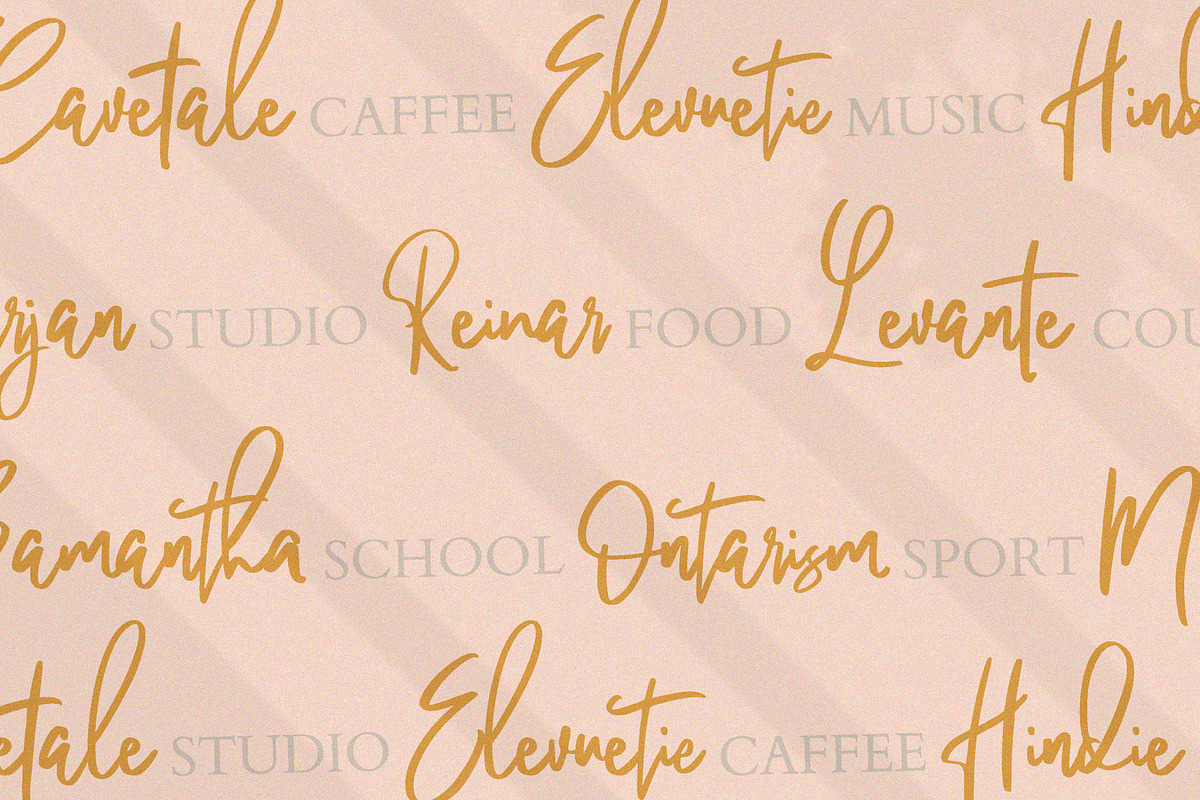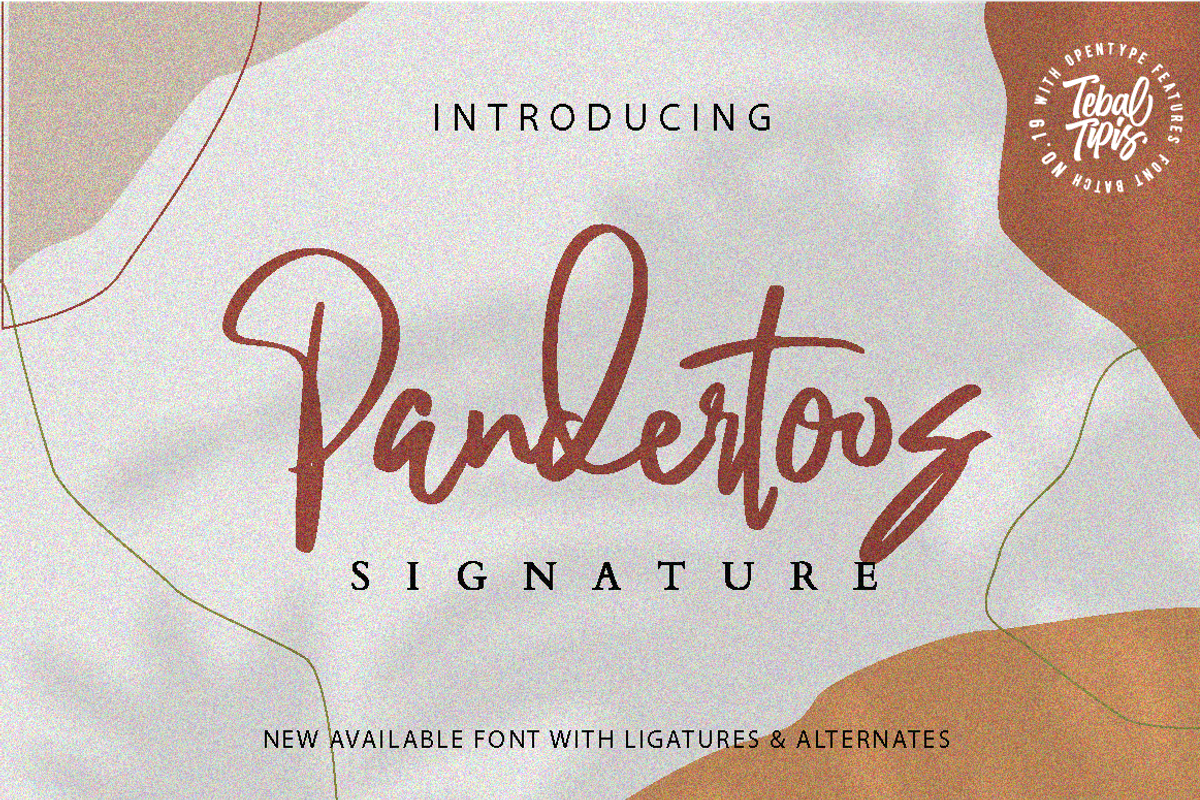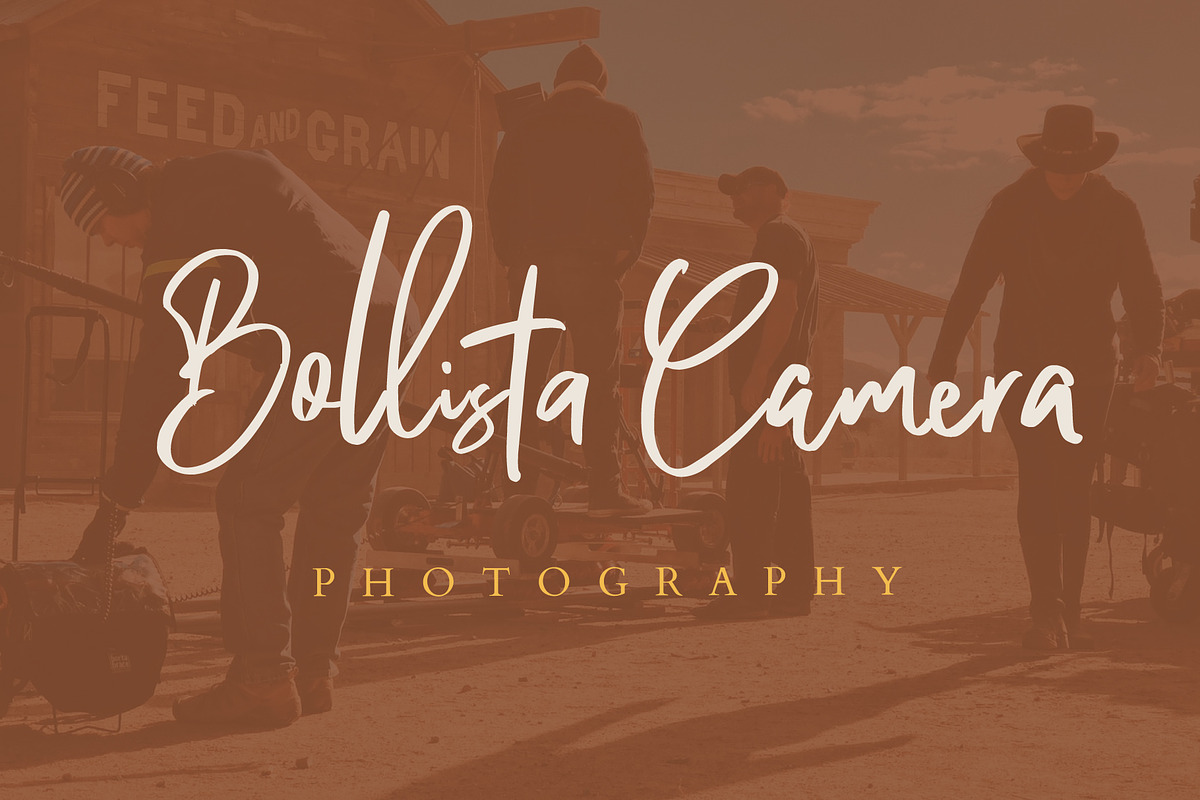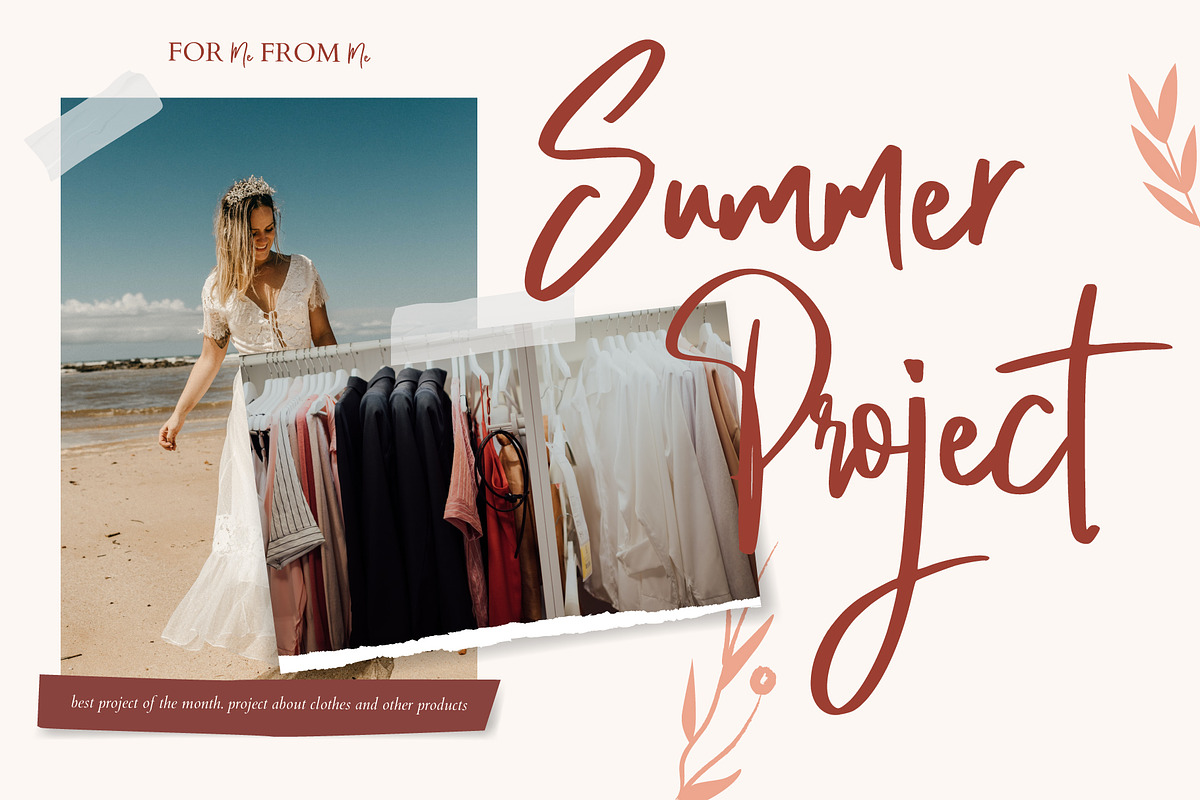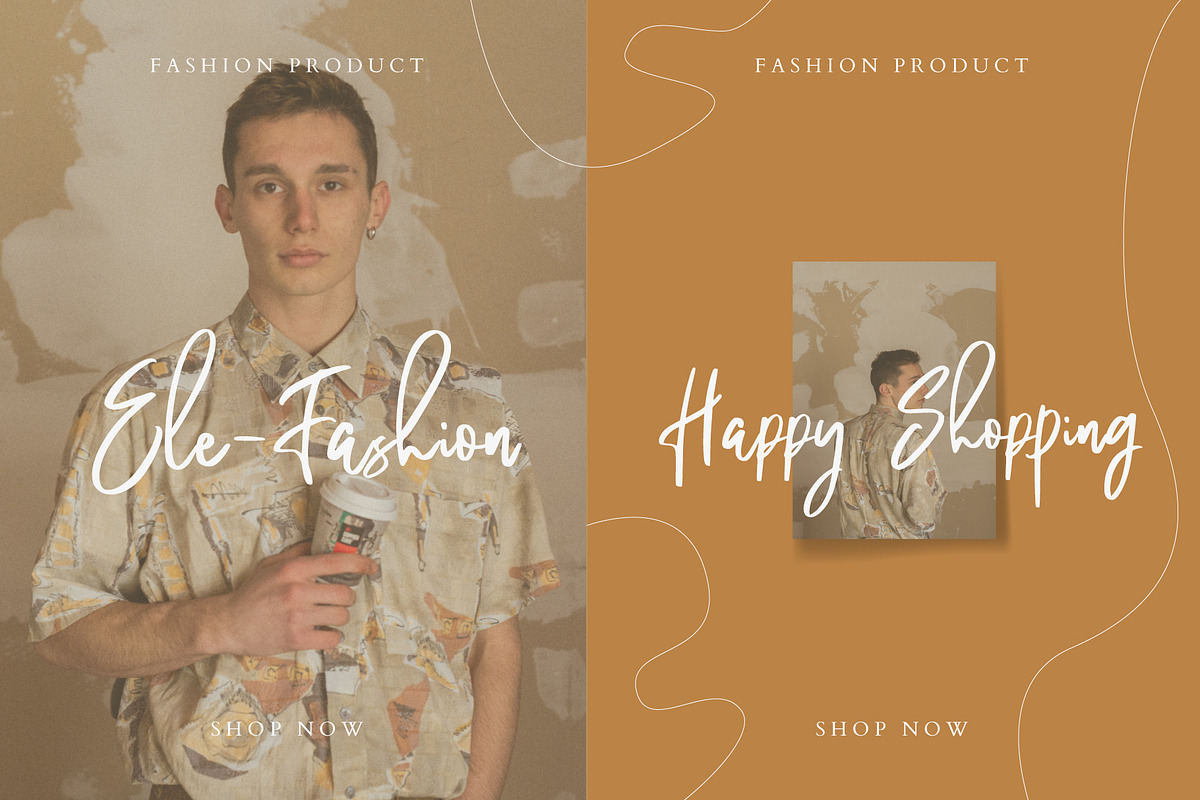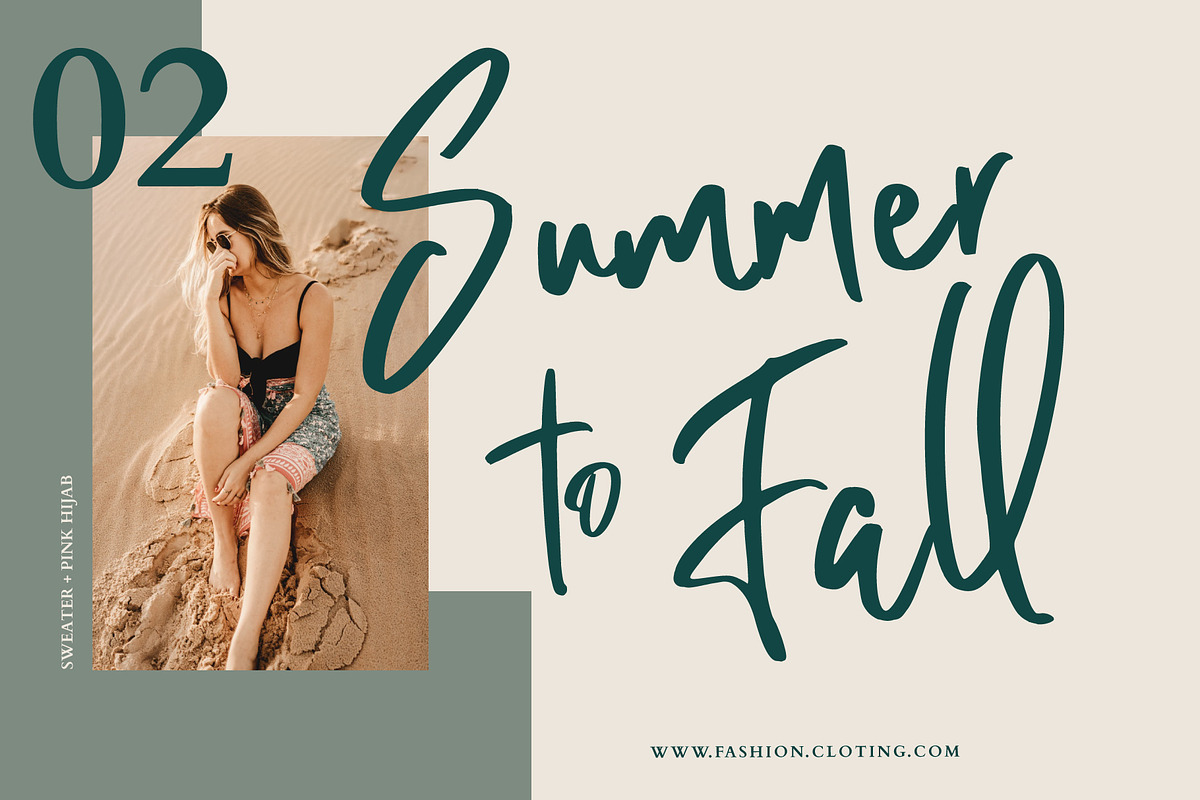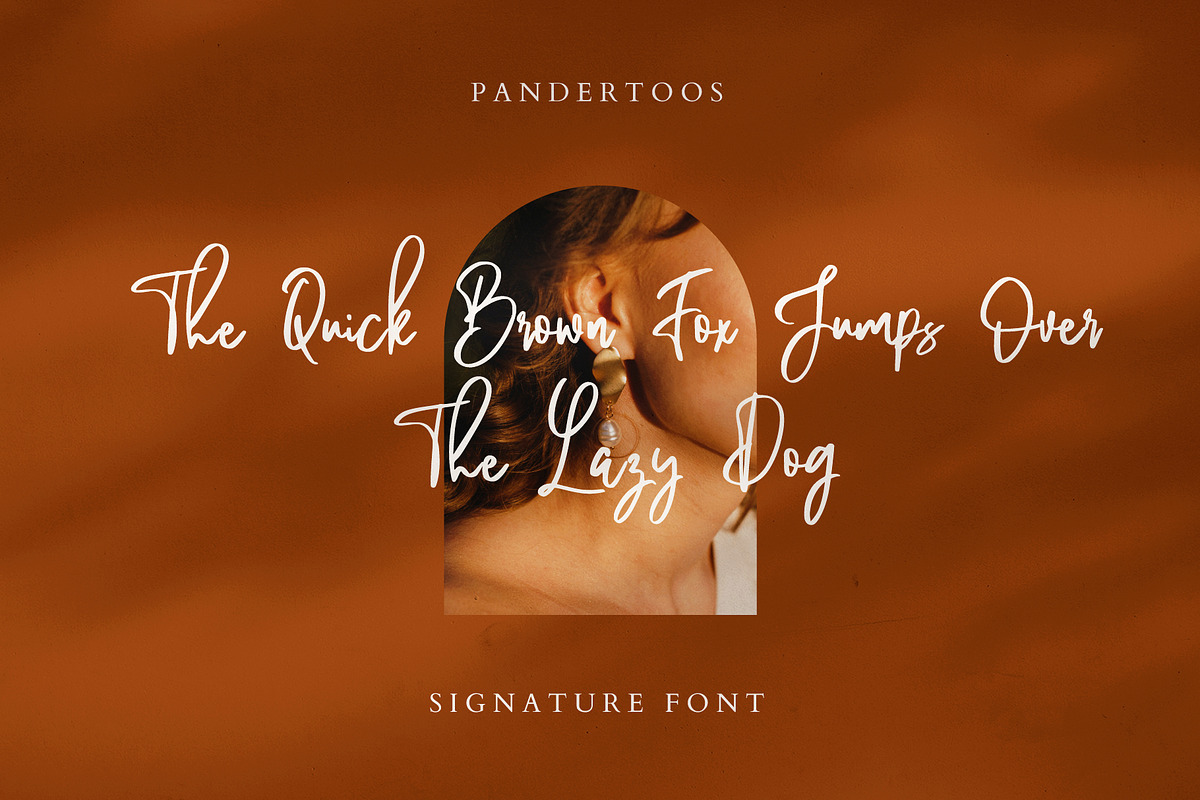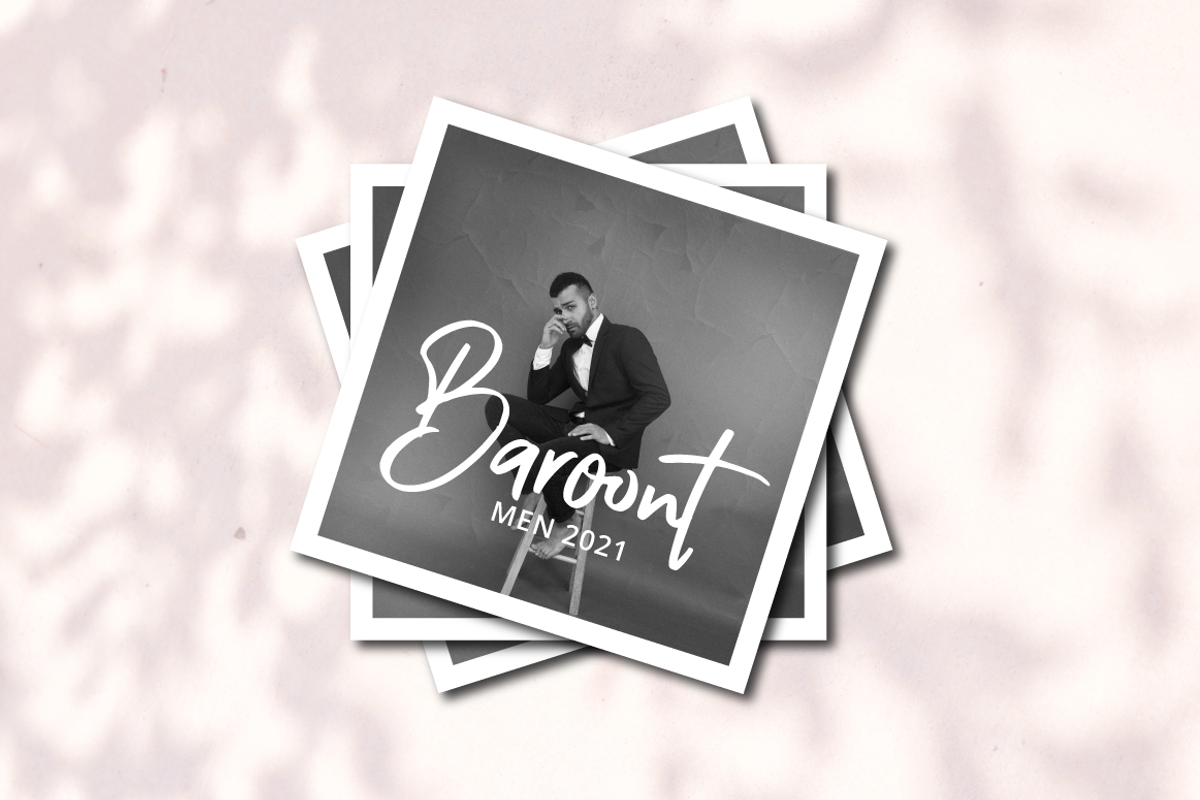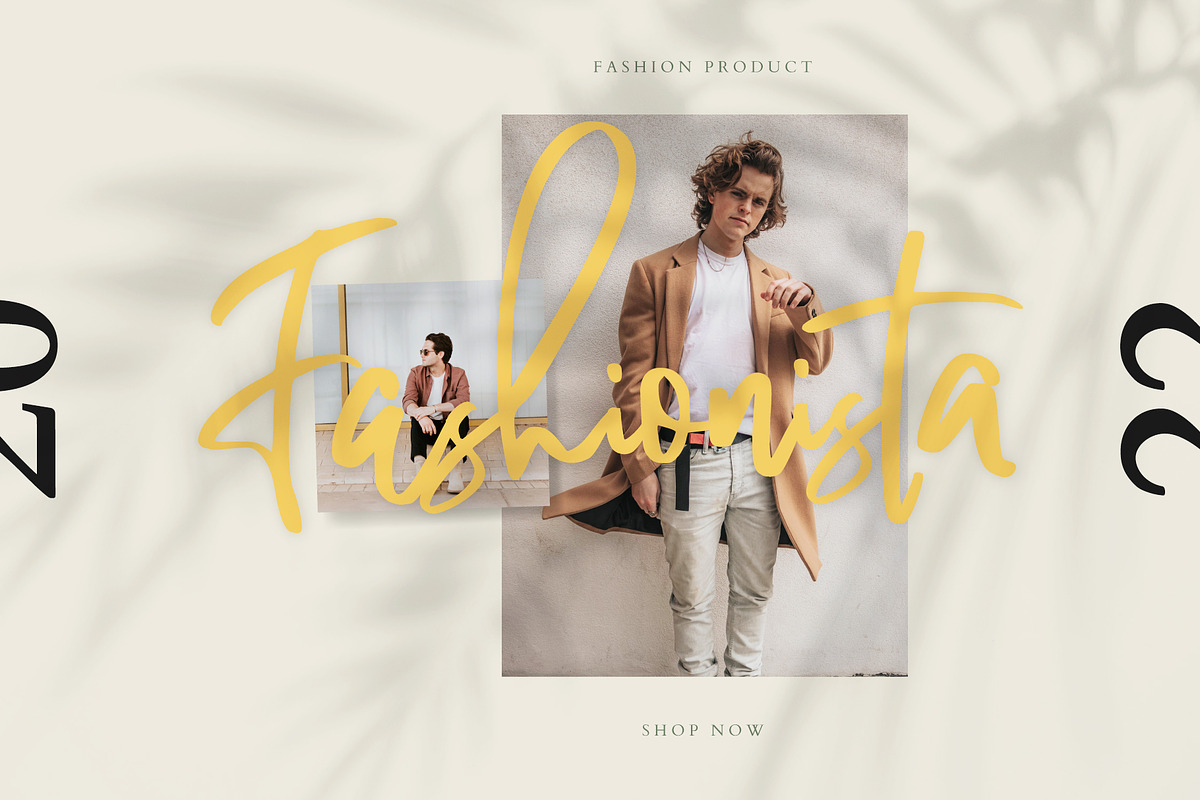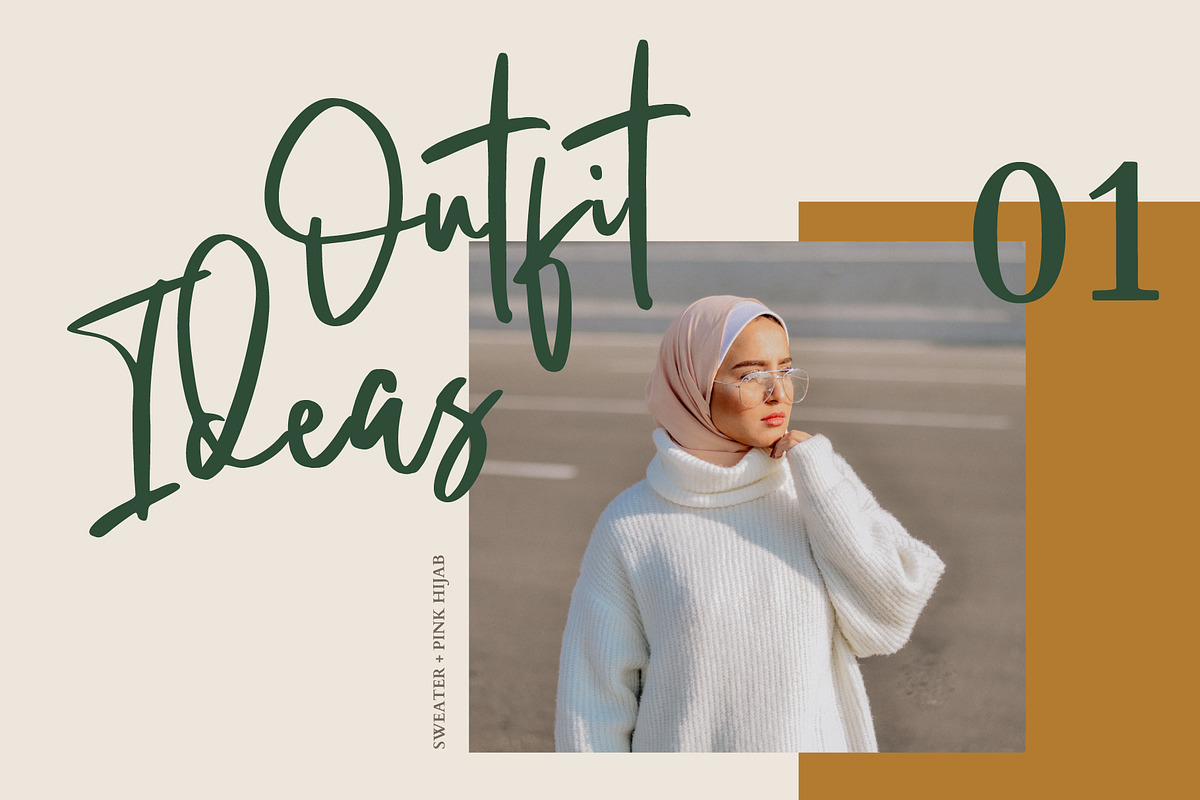
Pandertoos - Handbrush Signature
Pandertoos Signature with a handmade Signature style, decorative characters and a dancing baseline! So beautiful on invitation like greeting cards, branding materials, business cards, quotes, posters, and more!!